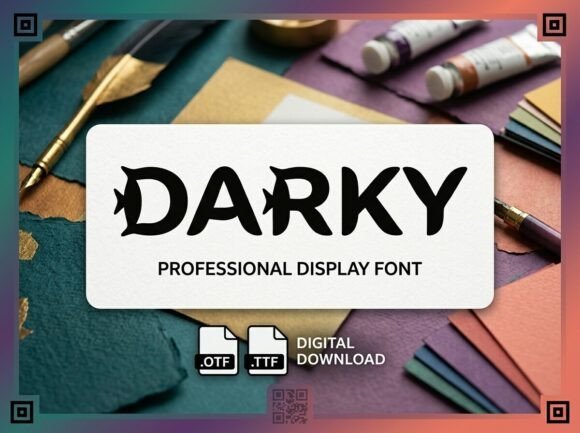
Introduction to Darky Font
Dive into your next creative project with Darky, a professional display font that seamlessly blends bold geometry with whimsical aquatic motifs.
This unique typeface features heavy, rounded letterforms where the negative spaces and terminals are cleverly transformed into stylized fish silhouettes and tail fins The balance between its high-impact visual weight and these playful, oceanic details makes it an exceptional choice for aquarium branding, seafood restaurant logos, marine conservation graphics, and children’s adventure book titles.
Key Features of Darky Font
Why Choose Darky Font?
Darky Font offers exceptional quality and versatility, making it a valuable addition to your design toolkit. Whether you’re creating for personal projects or commercial use, Darky Font delivers professional results.